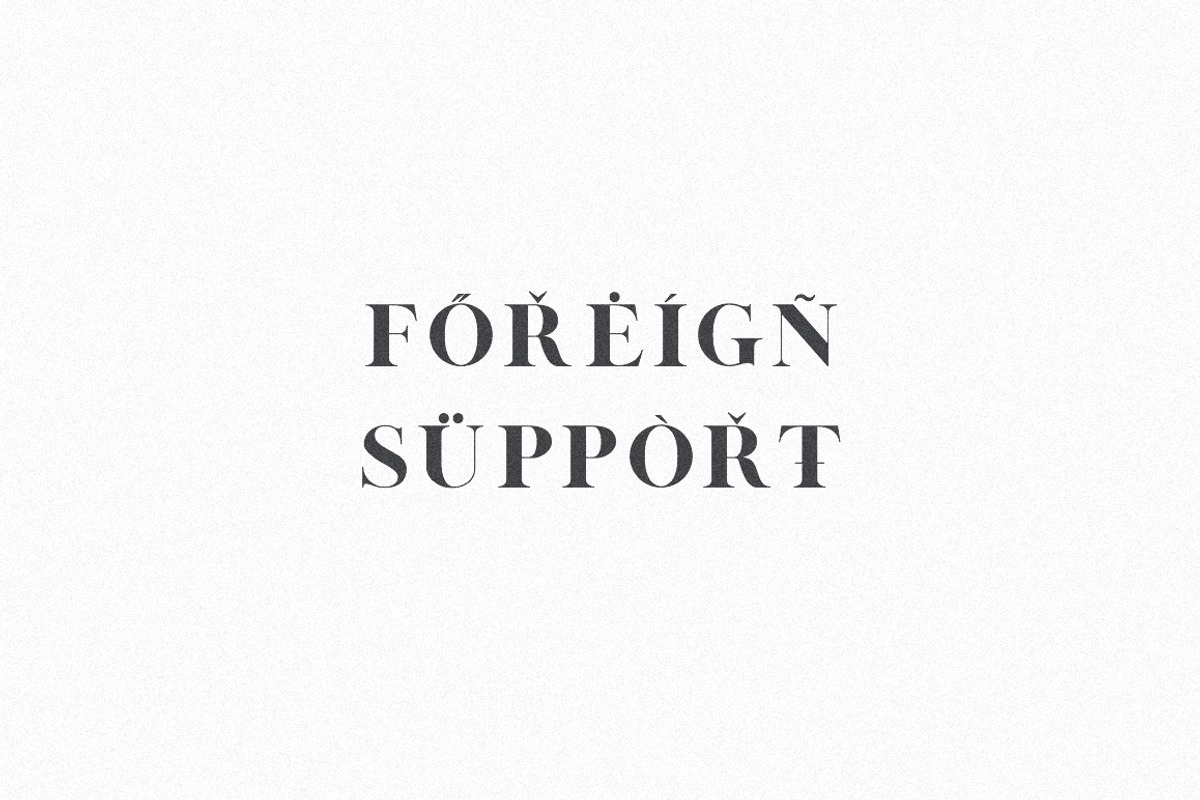
London | A Luxe Serif
Create gorgeous + timeless designs and logos with London, a luxe designer serif. London's thick to thin contrast and sleek lines make it perfect for logos, quotes, invitations, weddings, business cards, powerpoint presentations, and more!
- Uppercase Letters
- Numbers + Punctuation
- Multilingual Support (Western + Central European)